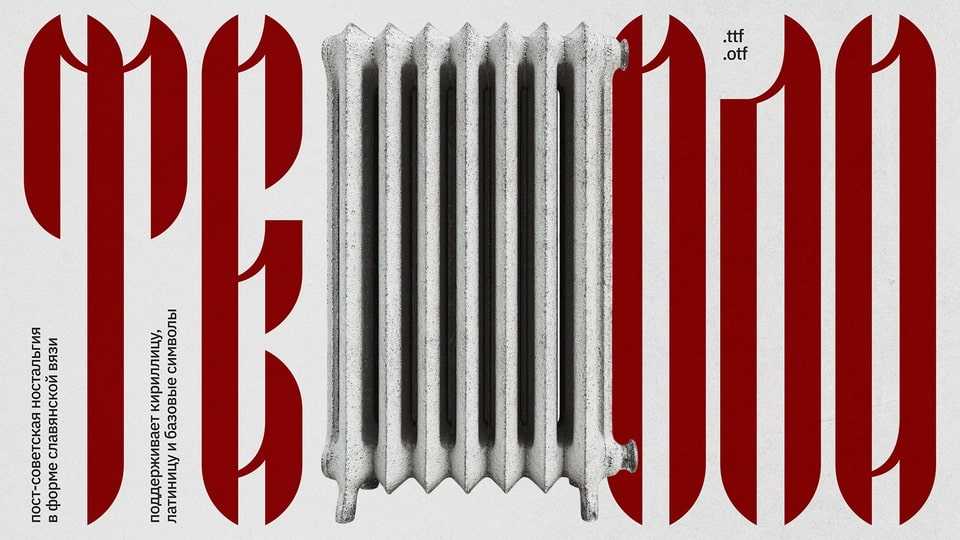
Download Teplo font, a bold and evocative display font that pays homage to the warmth and nostalgia of post-Soviet culture inspired by the iconic design of old Soviet radiators.
Designer: Alexandra Zarekoy